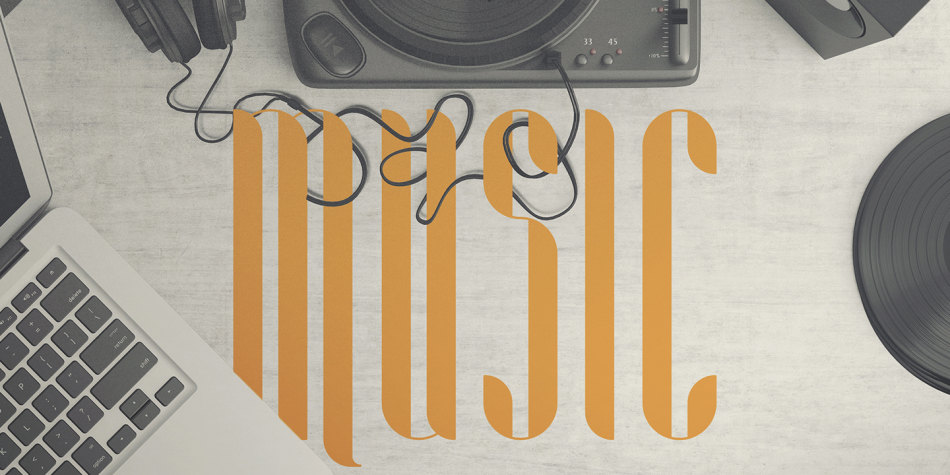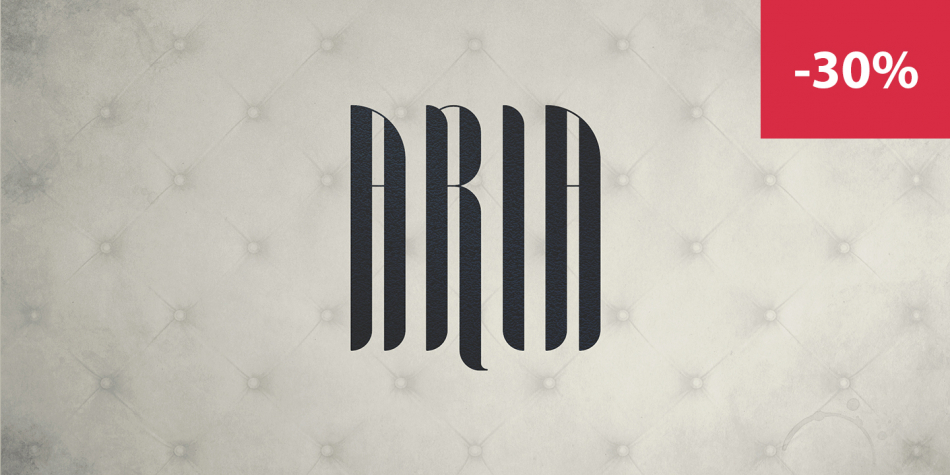
Aria is a art nouveau font family. This typeface has four styles and was published by Vladfedotovv.
Aria font family Aria is long, elegant display typeface with 4 fonts and multilingual support.
It’s a very versatile font that works great in large and small sizes. Aria is perfect for branding projects, home-ware designs, product packaging, magazine headers - or simply as a stylish text overlay to any background image.